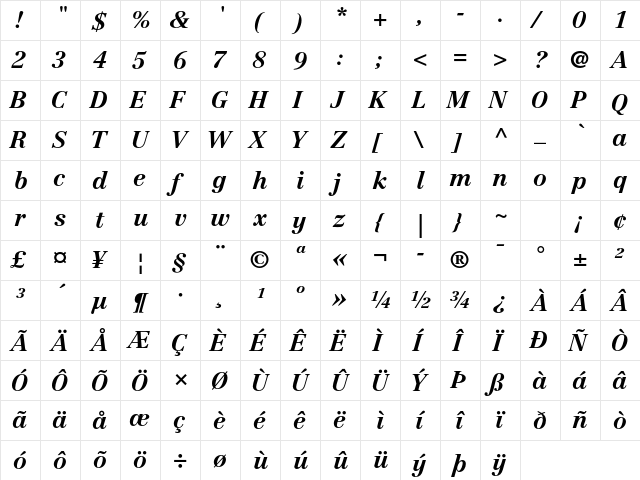
Centennial LT Std 76 Bold Italic
| Designer | Adrian Frutiger |
Design Context for Centennial LT Std Typeface
Centennial LT Std is a composed and adaptable typeface that performs quietly and consistently across a wide range of design contexts. The dynamic lean of this cut emphasises speed and emphasis in any layout. Its bold stroke weight gives it real presence on the page.
Pro Tip: Try Centennial LT Std for annotation and caption copy alongside an upright companion — the contrast in angle creates a dynamic but ordered typographic system.